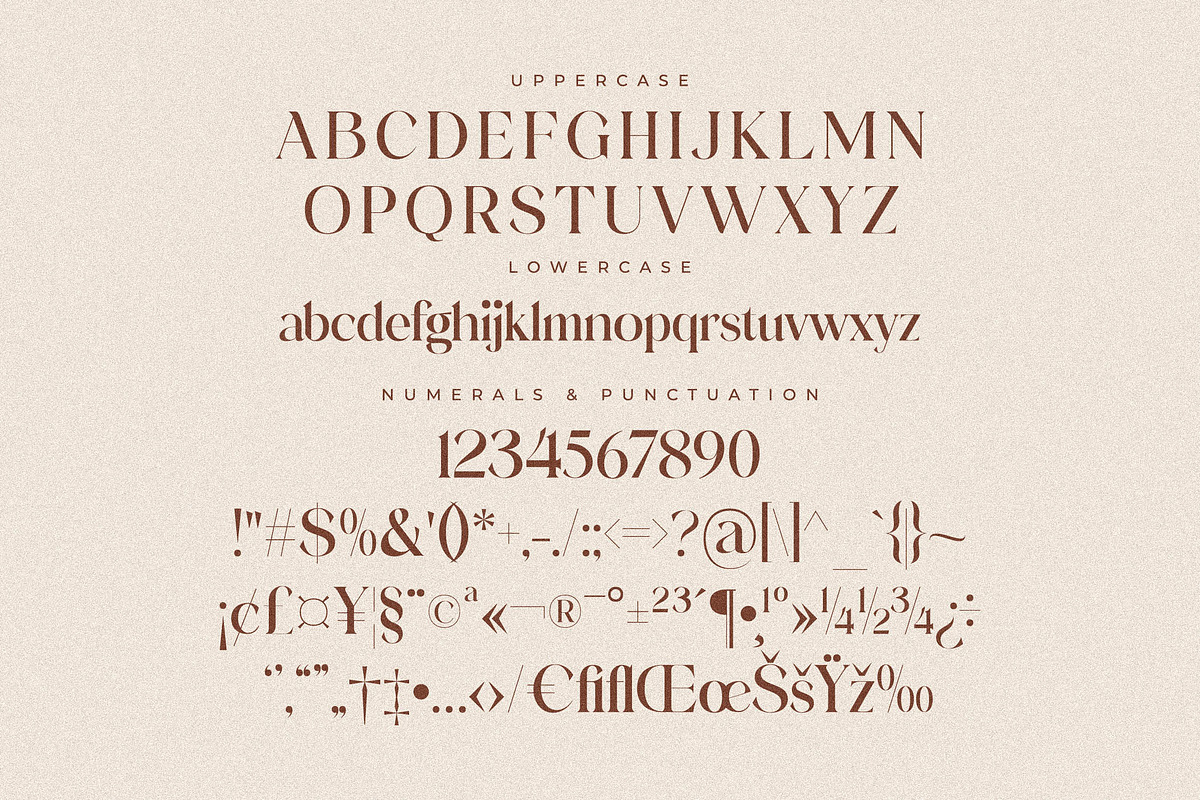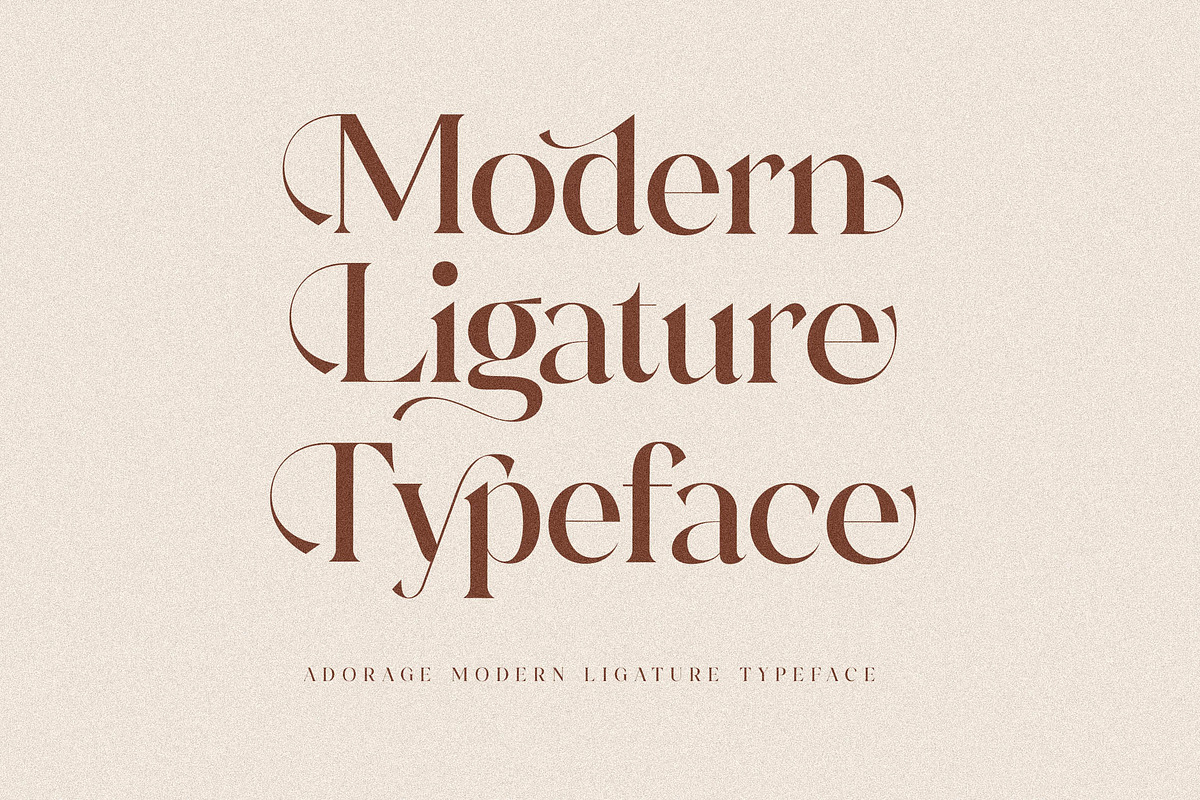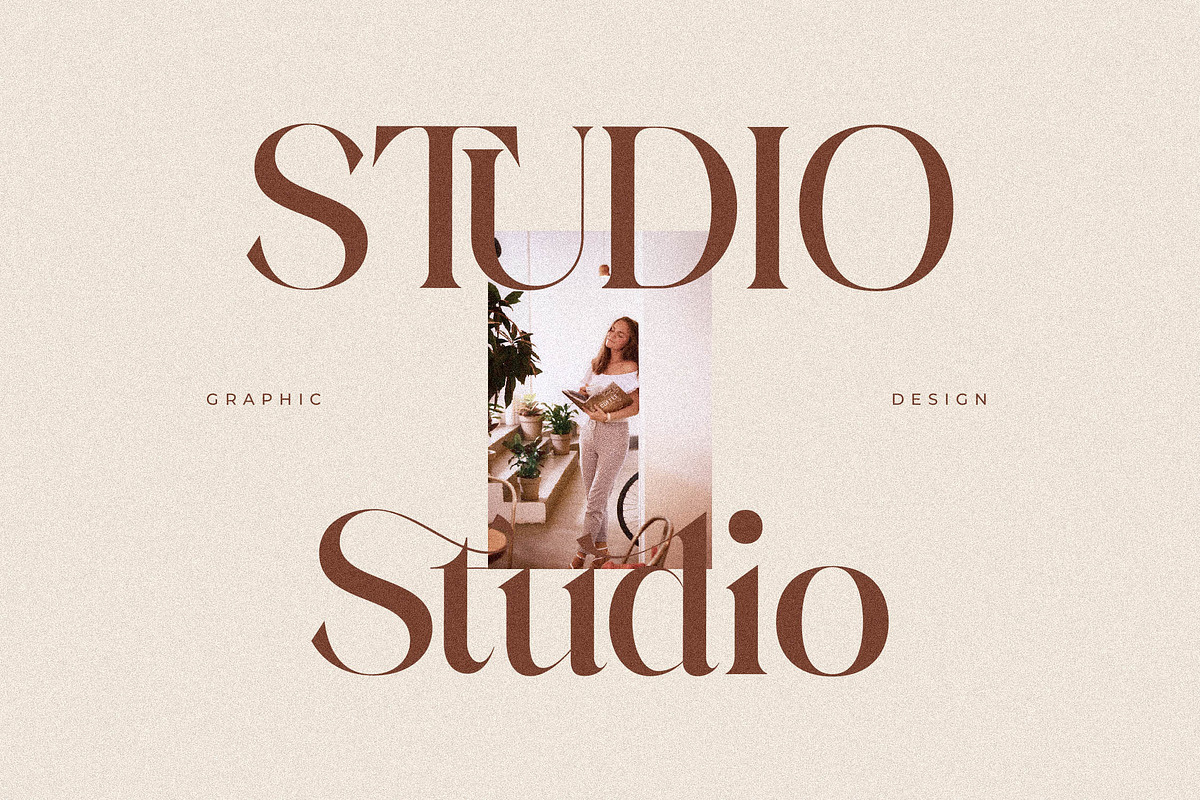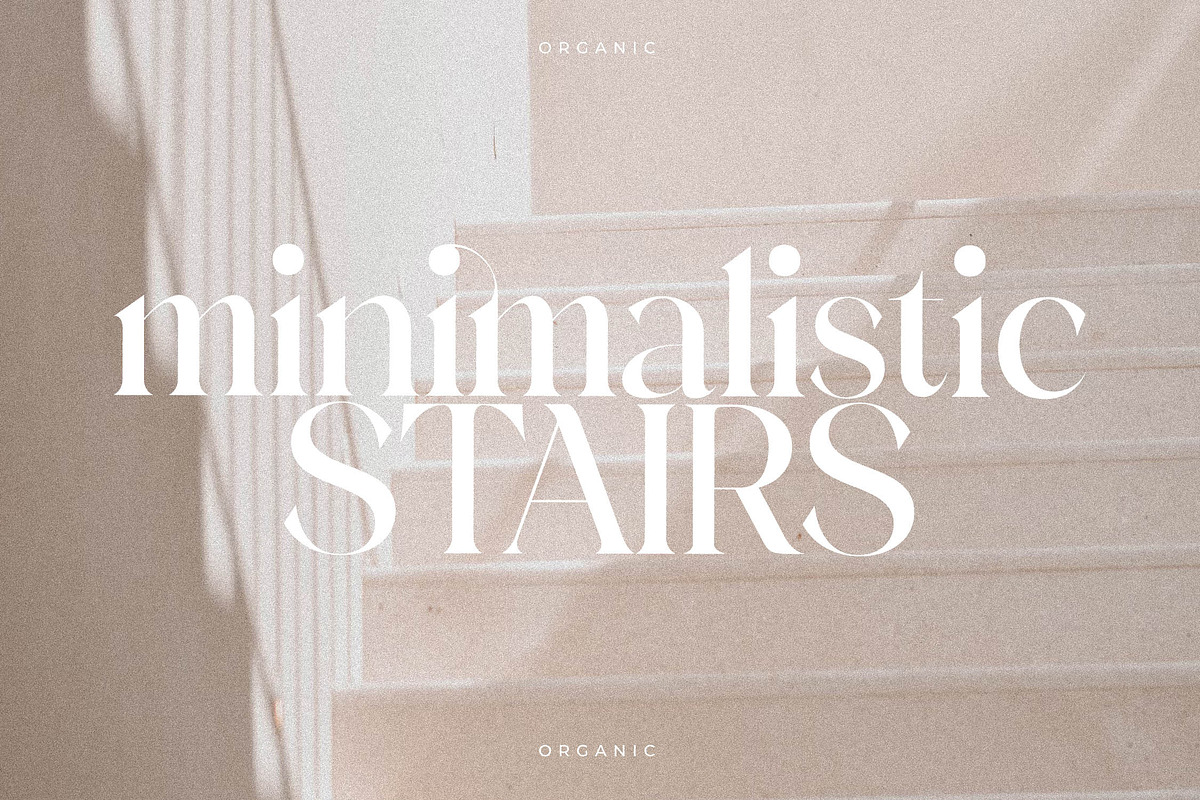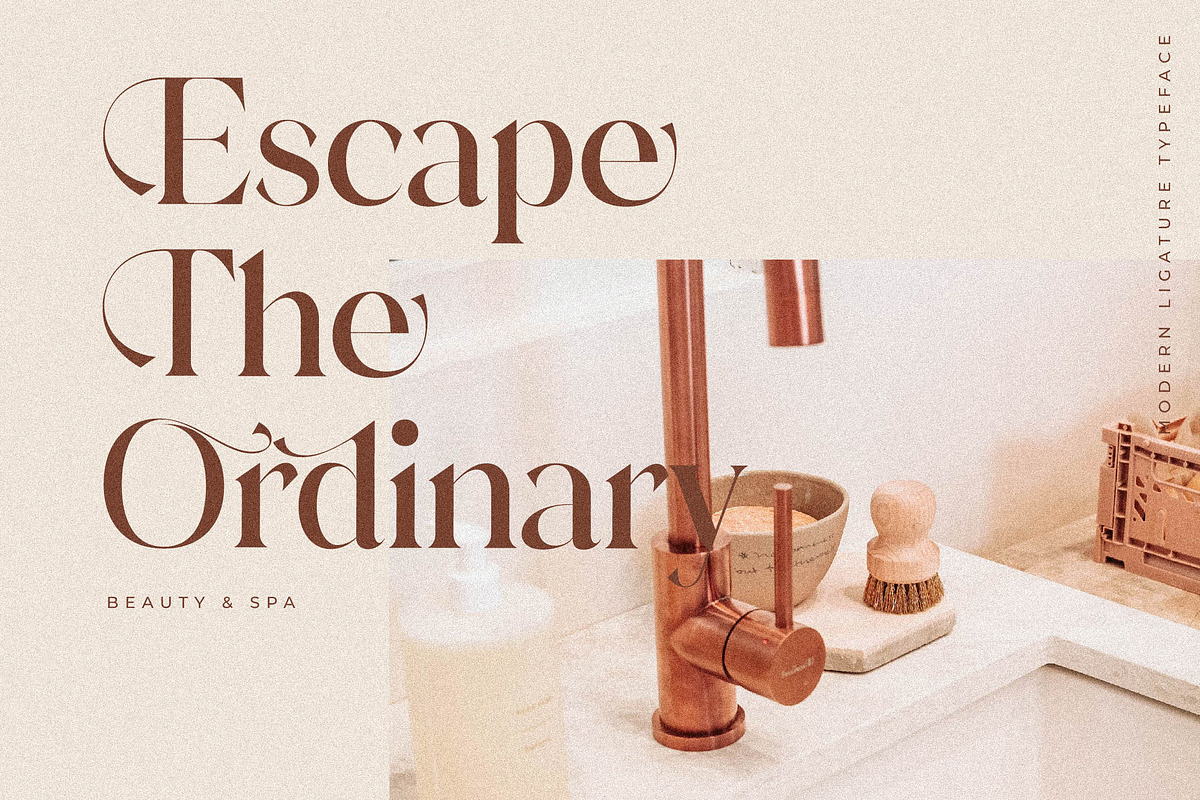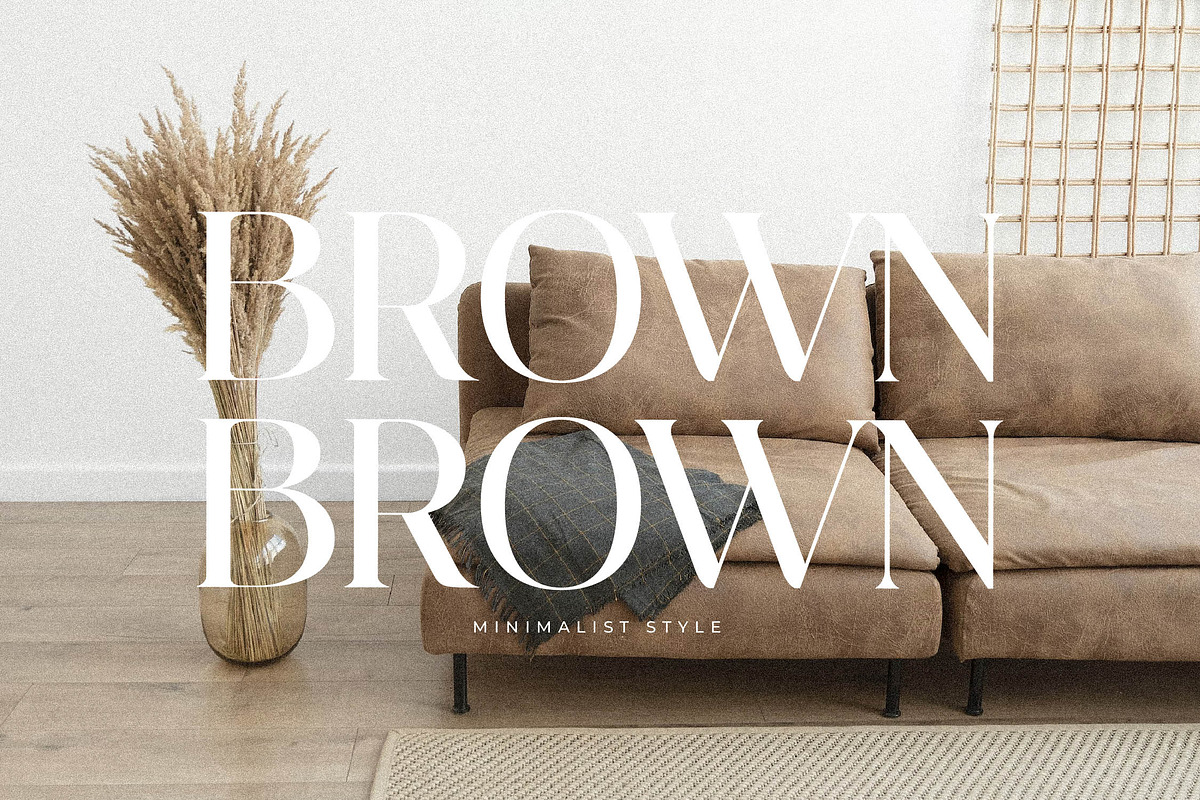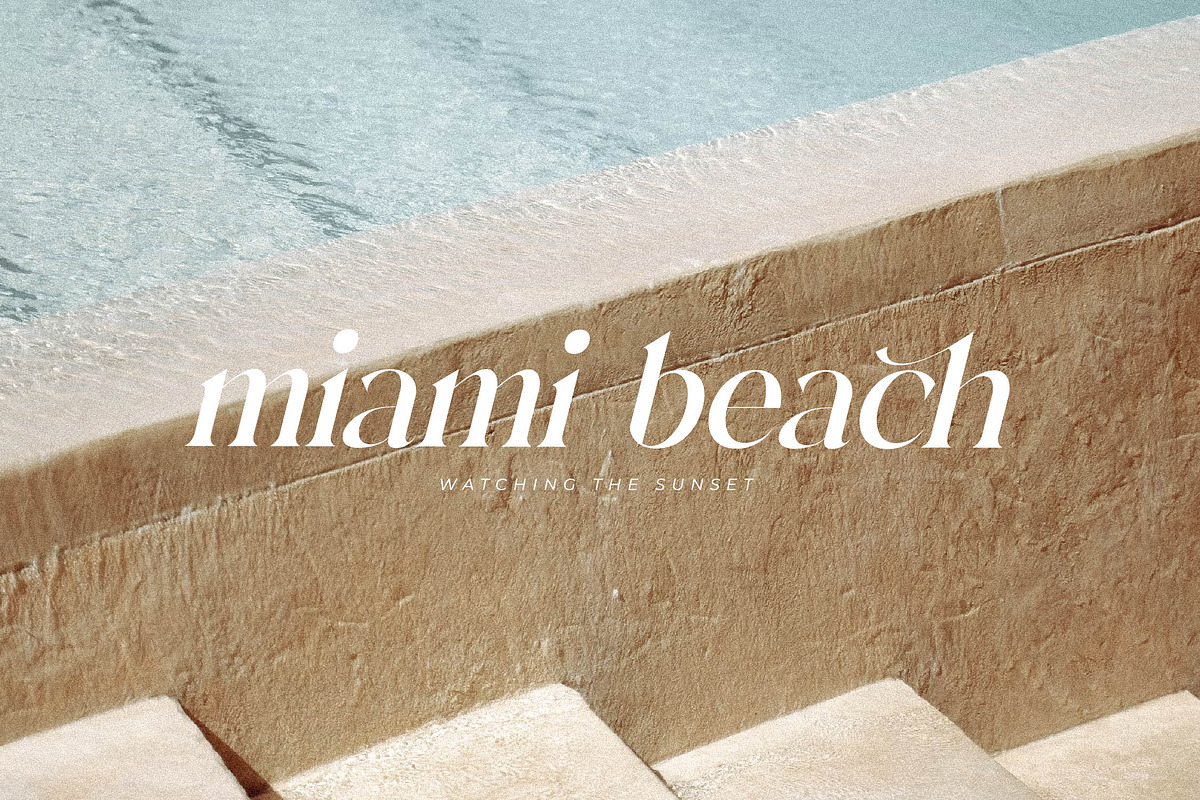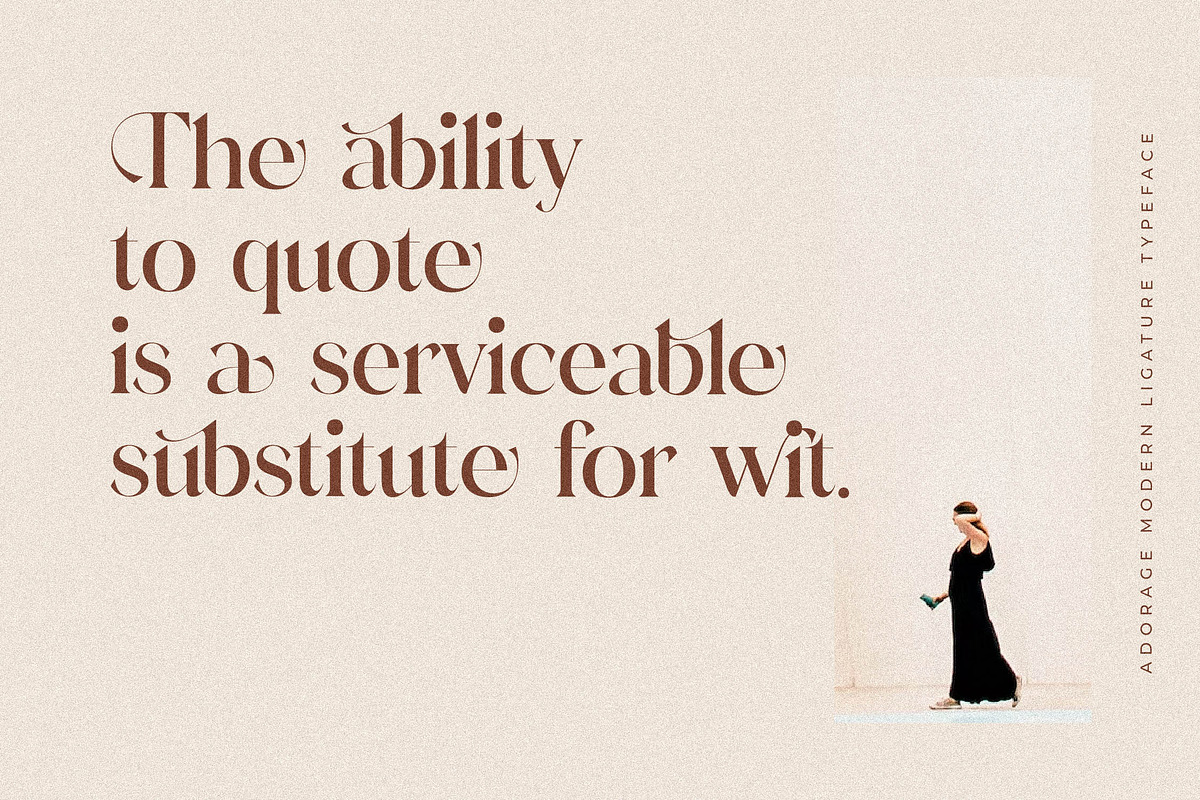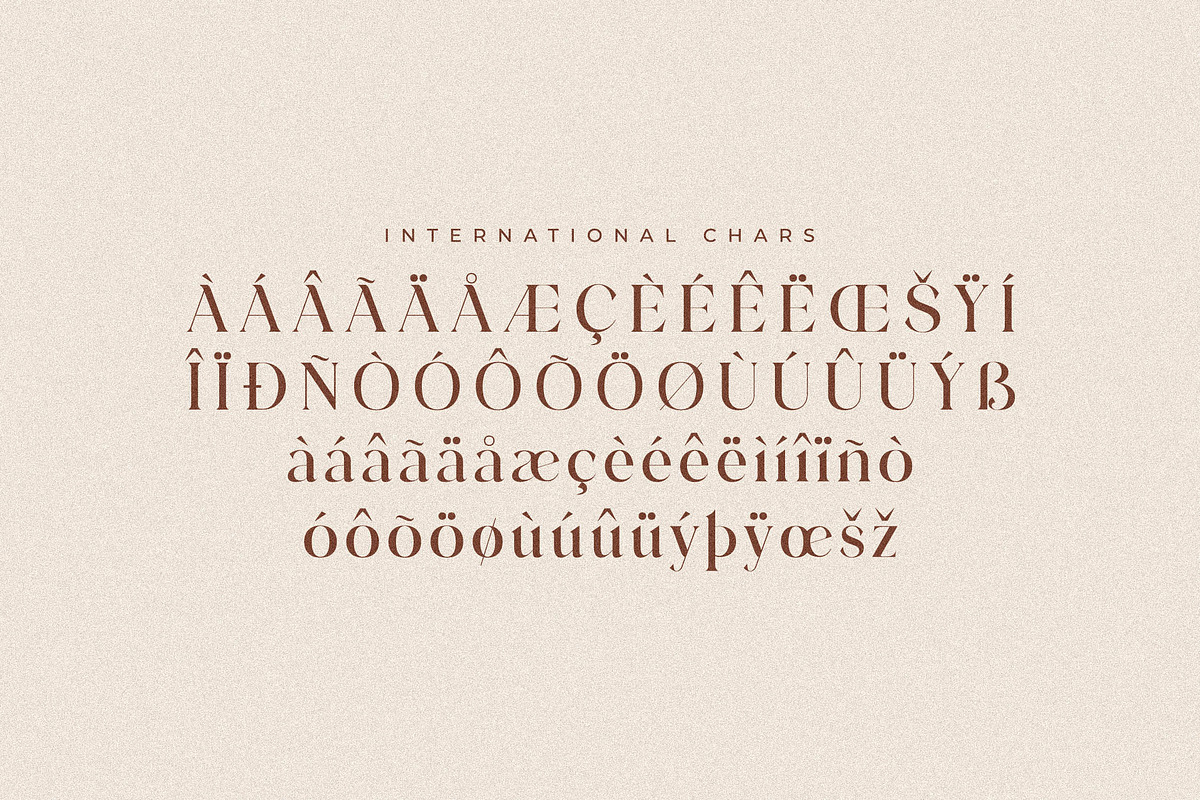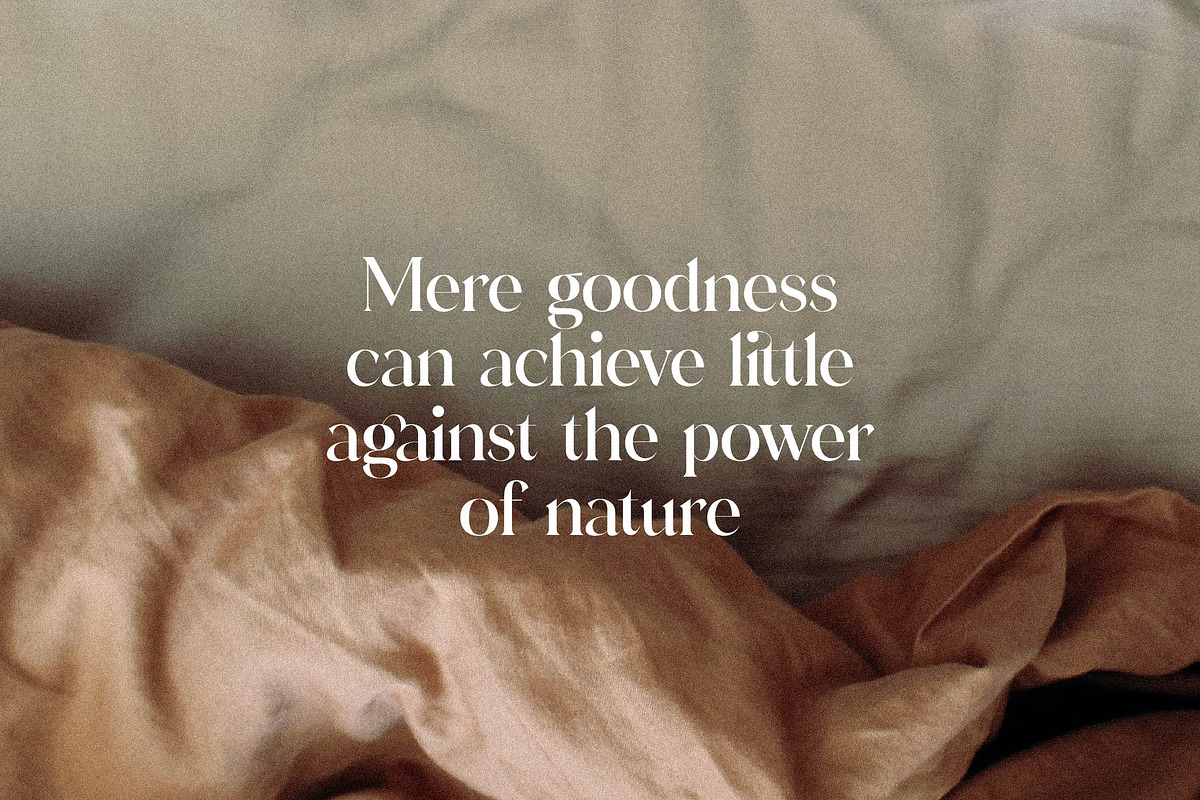
Adorage Modern Ligature Typeface
Proudly present Adorage Typeface , created by Storytype, A serif modern and classic typeface that has own unique style & modern look. This typeface is perfect for an elegant & luxury logo, book or movie title design, fashion brand, magazine, clothes, lettering, quotes, and so much more.